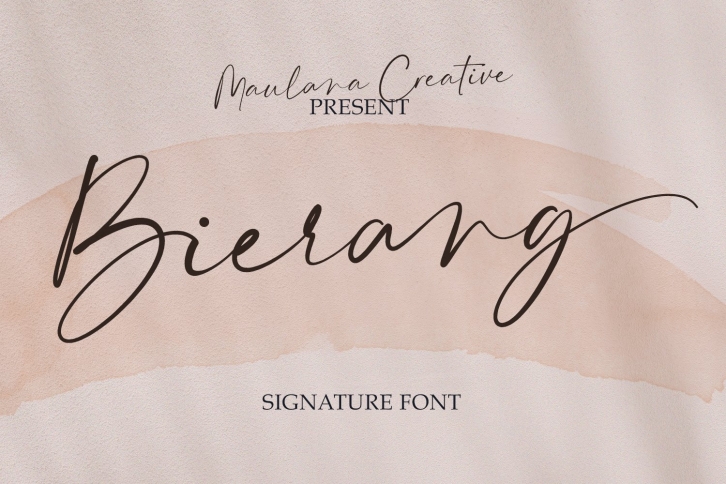
Bierang Signature is a gorgeous font that was realeased on November 18, 2020. The font can be used in many style contexts and design environments. Perfect for invitations, magazines, websites, logos, and more! It was designed by Maulana Creative and the file size is 6.92 MB. Thanks for checking out this font!